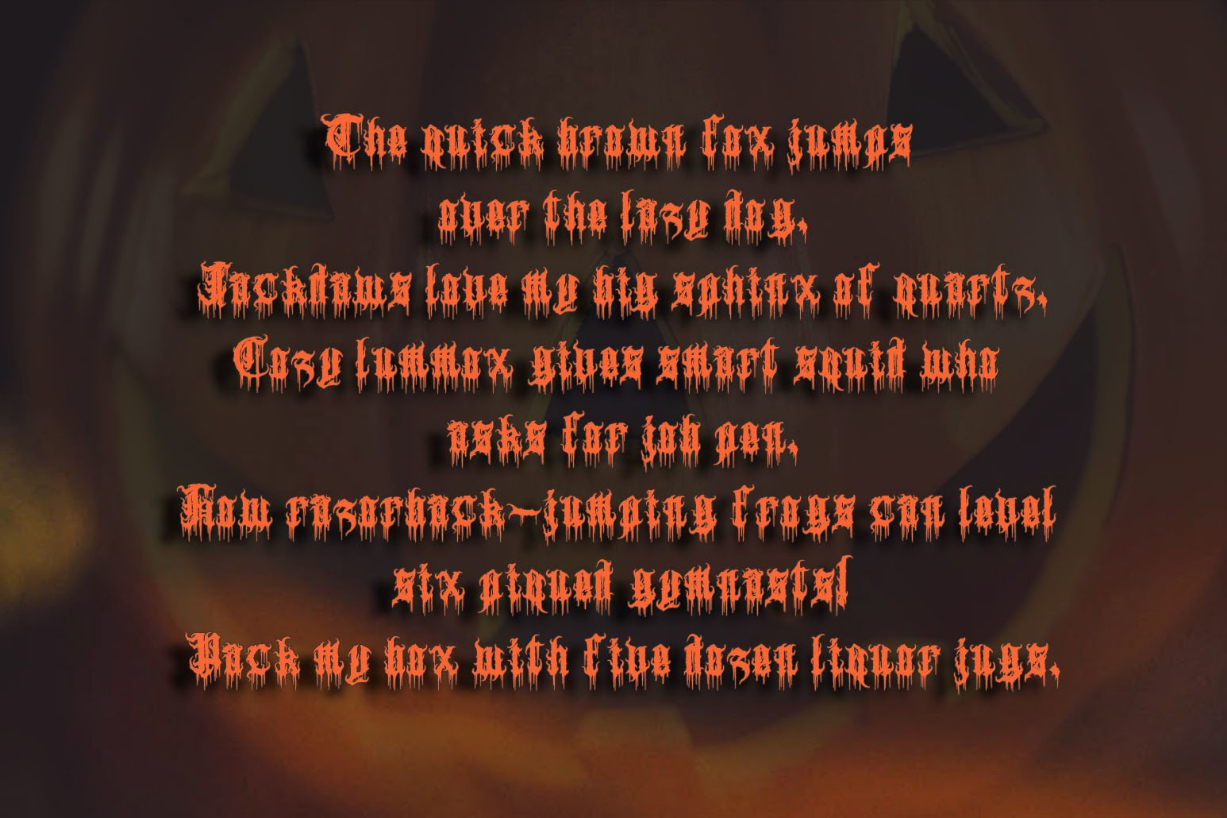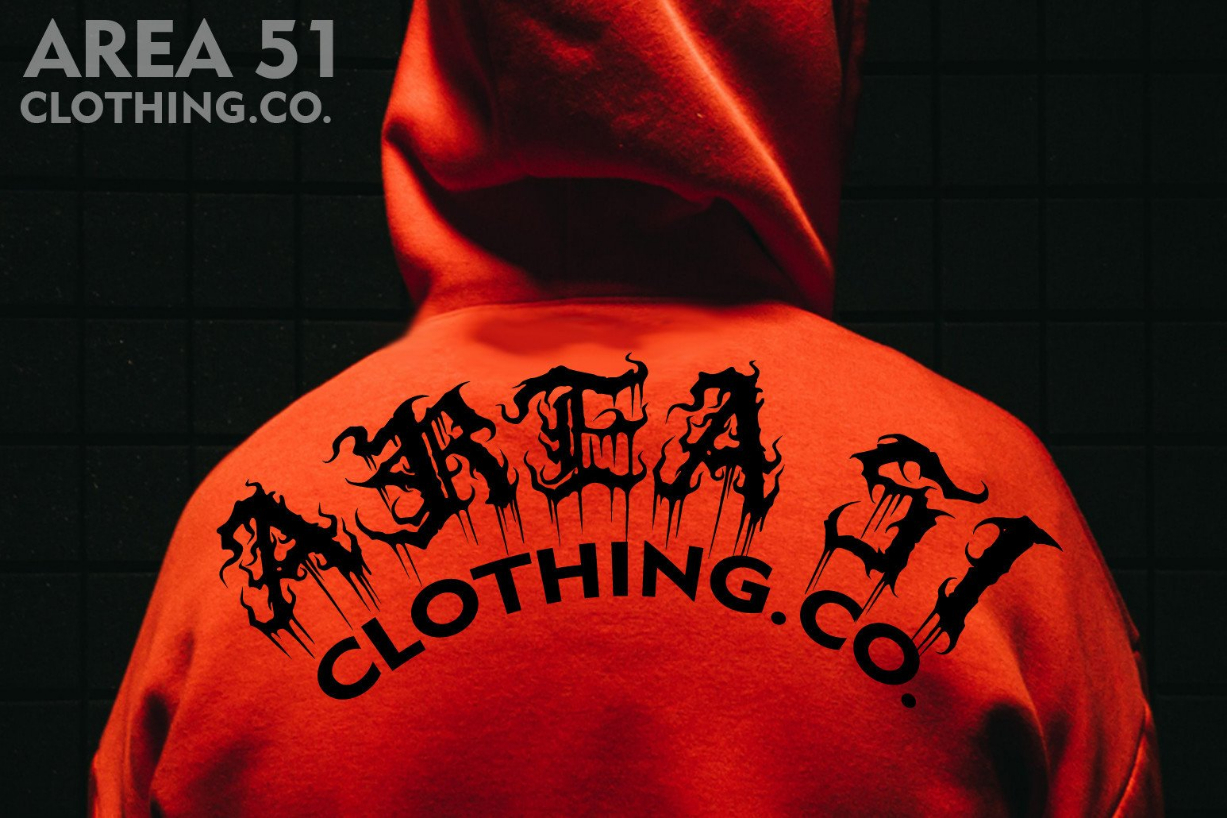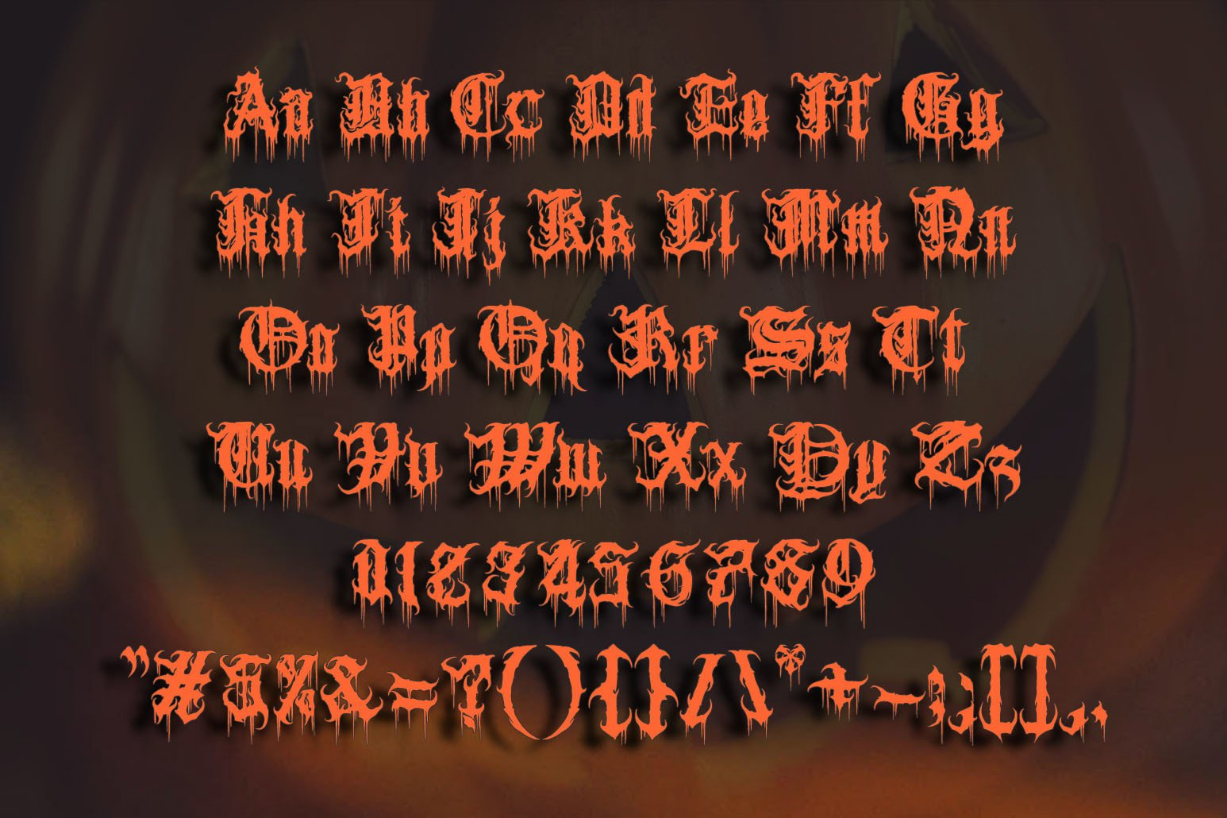
Sweet Helloween Font
About Sweet Helloween Font
Sweet Helloween is an incredibly cool and spooky blackletter font. Use it for product Halloween t-shirts, cards, social media posts, or other projects that need scary and daring typography!